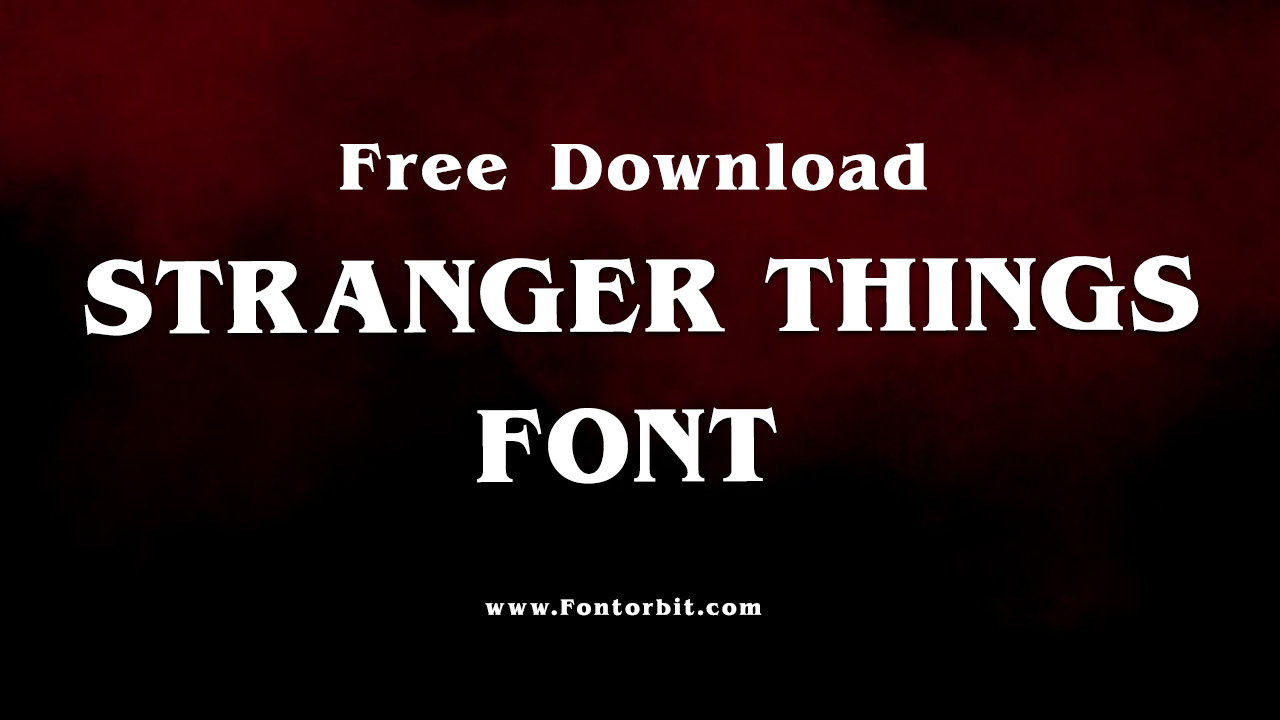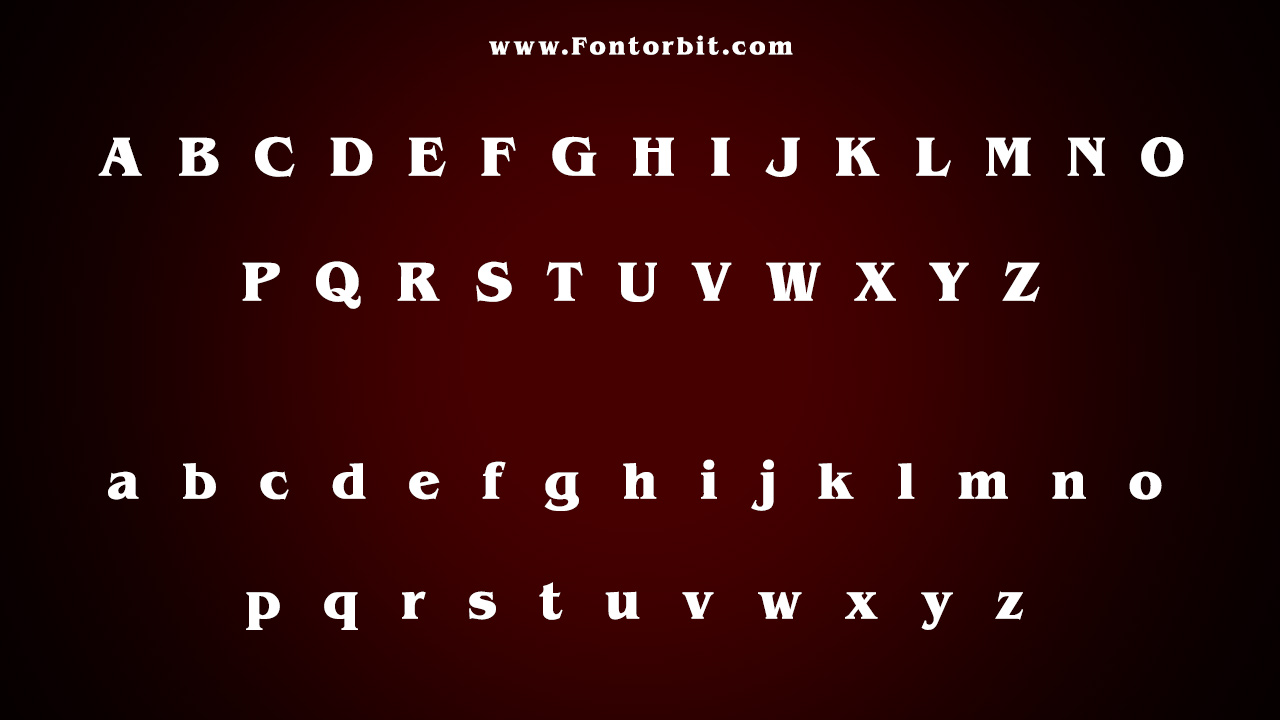
The Stranger Things Font, officially known as ITC Benguiat Bold Condensed, became widely recognized after being used in the logo of the popular Netflix series Stranger Things.
This iconic typeface was designed by Ed Benguiat in 1977 for the International Typeface Corporation. With its unique letterforms, large x-height, and vintage aesthetic, the font perfectly captures the eerie, retro vibe of the show, making it a favorite among designers and creators alike.
Type Of Stranger Things Font (Font Family)
The Stranger Things Font belongs to the serif display font category, known for its elegant yet bold style, perfect for attention-grabbing designs. The font family includes:
a. Stranger Things Outlined
b. Benguiat Bold
Using Occasions Of The Stranger Things Font
You can use the Stranger Things Font in various creative projects. Its bold, condensed nature makes it ideal for:
- randing
- Banners
- Brochures
- Flyers
- Wallpapers
- Illustrations
- Web and Print Design
- Horror and Science Fiction Themes
The Stranger Things Font Found In Use
The Stranger Things Font, most famously featured in the Stranger Things TV series logo, has become iconic for its distinct style. Beyond the show, various entertainment projects, advertisements, and fan-made posters have embraced this font.
Fans use it extensively in art and merchandise for Stranger Things, enhancing the series’ nostalgic and eerie vibe. Additionally, people frequently use the font in promotional materials for retro-themed events and display branding for horror or sci-fi films, where its unique aesthetic adds a sense of intrigue and suspense..
The Stranger Things Font, or ITC Benguiat Bold Condensed, is a bold, vintage typeface that has become a symbol of mystery and nostalgia thanks to its use in the Stranger Things series. Designed by Ed Benguiat, this font is perfect for logos, branding, and creative projects that require a dramatic or retro feel.
1.What Is The Stranger Things Font?
The Stranger Things Font is ITC Benguiat Bold Condensed, a serif display font designed by Ed Benguiat in 1977.
3.What Makes The Stranger Things Font Unique?
Its large x-height, unusual character shapes, and retro aesthetic make the font distinctive and highly recognizable.
4.Where Is The Stranger Things Font Used?
The font in the Stranger Things TV series logo is popular in horror, sci-fi, and retro-themed design projects.